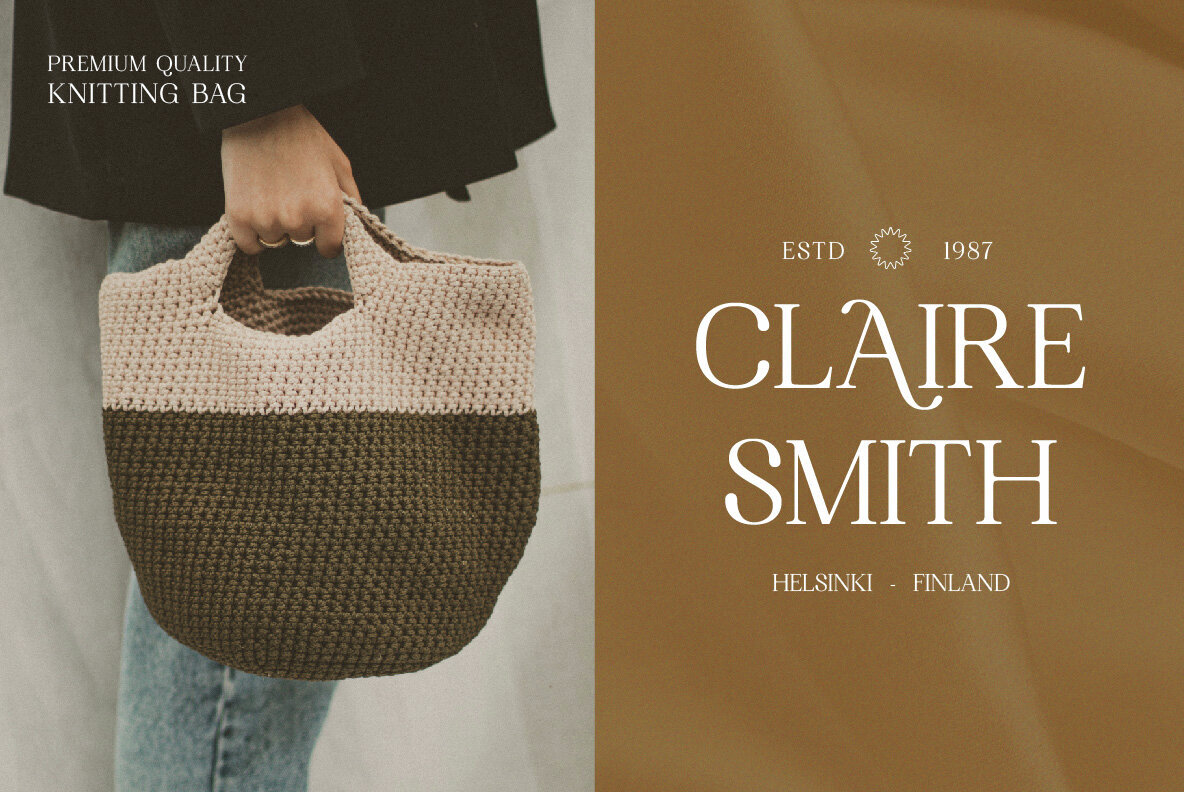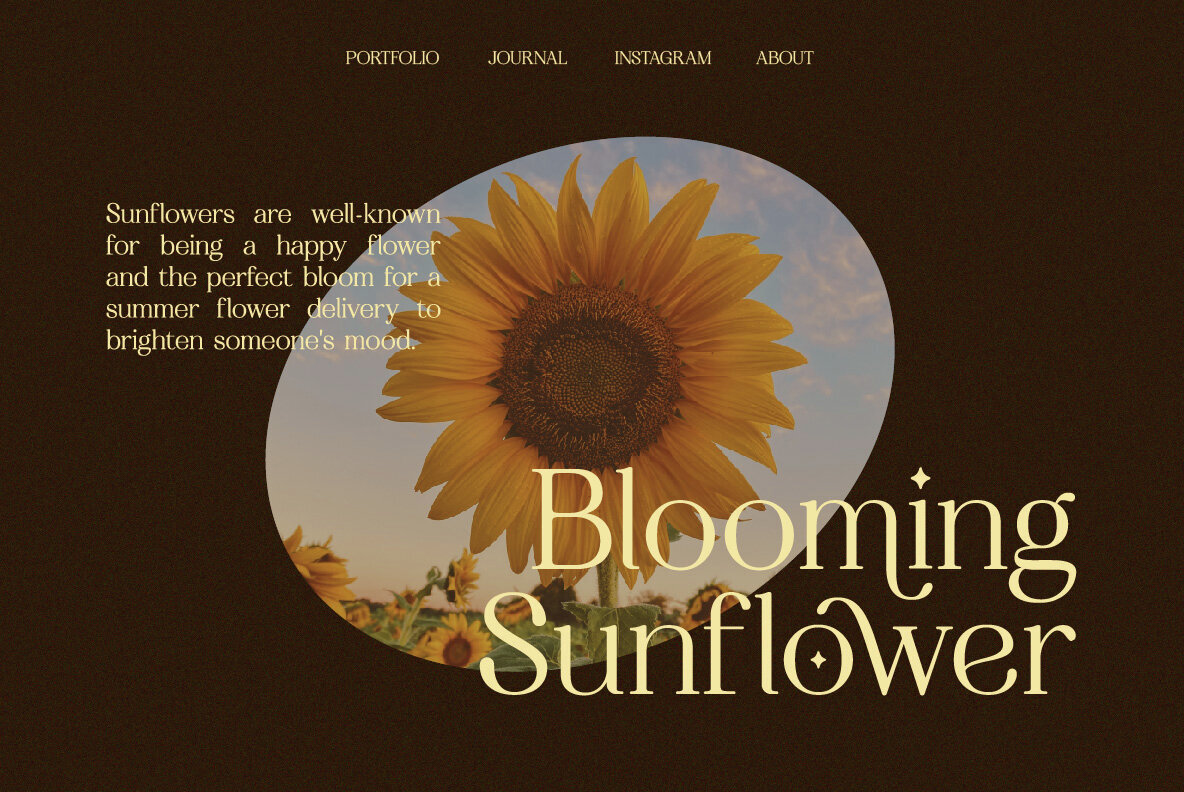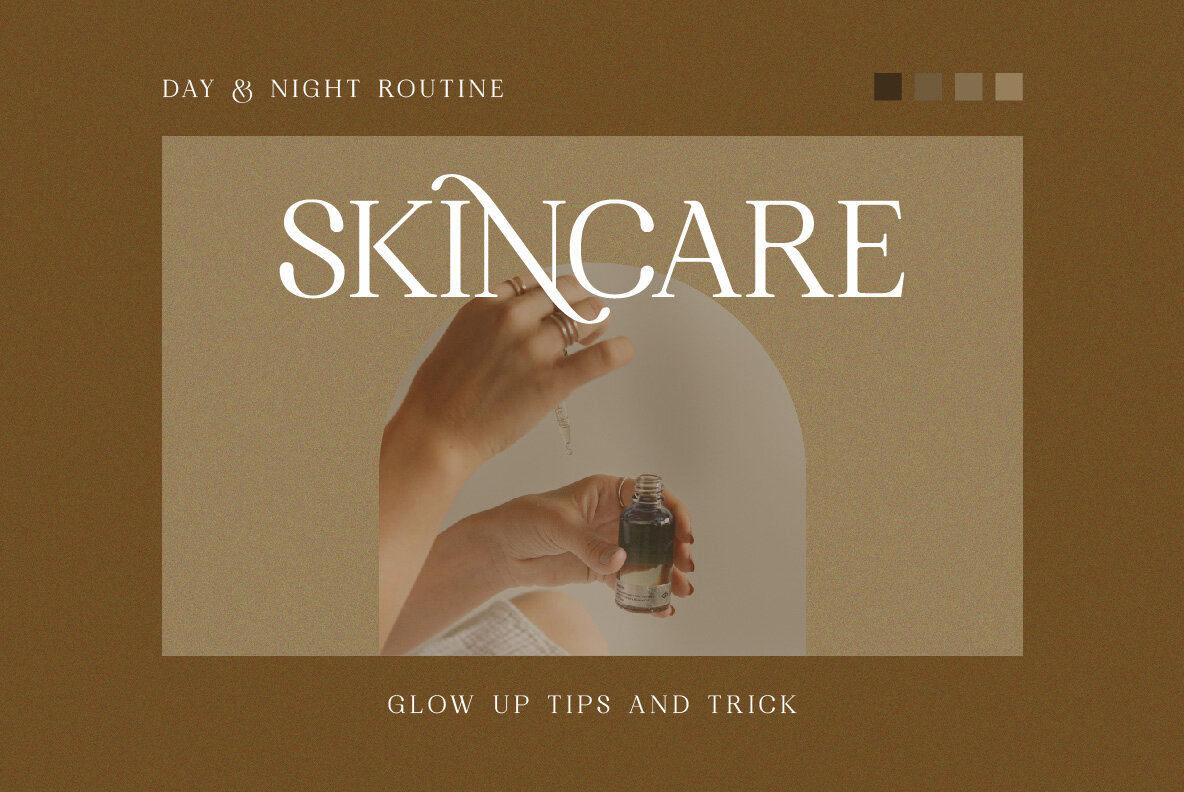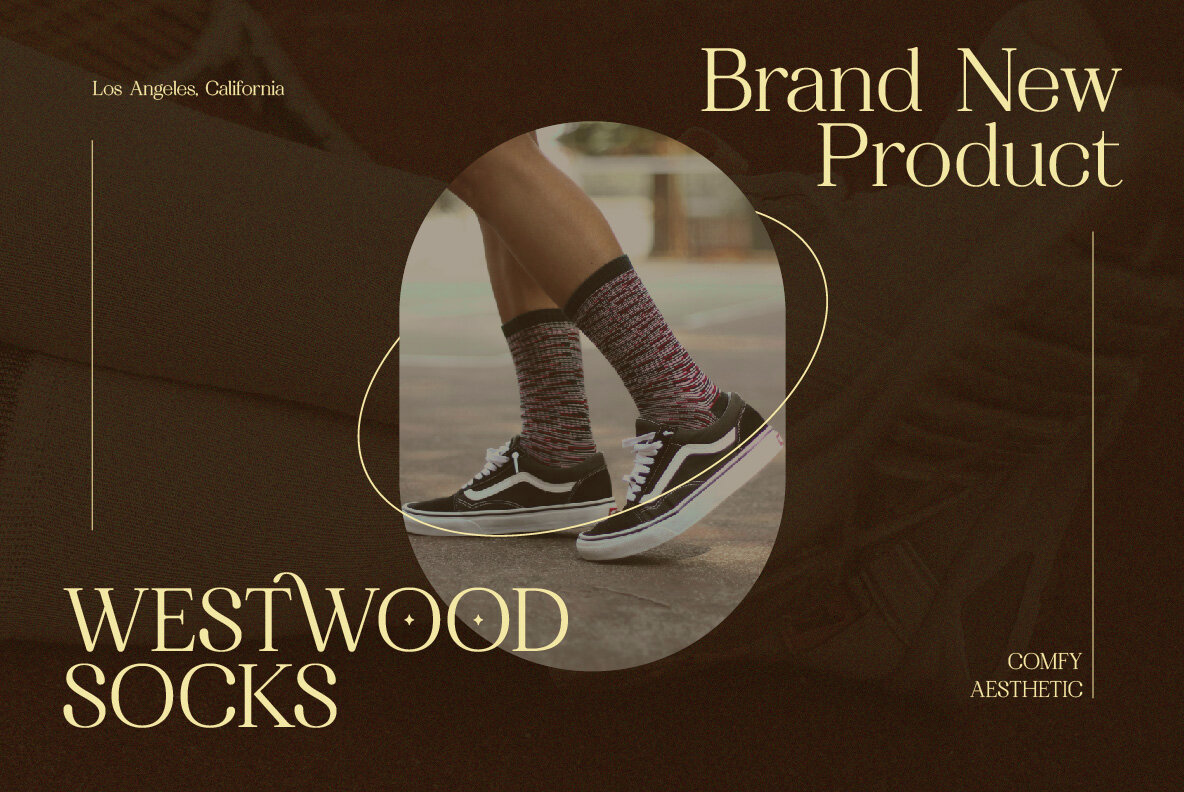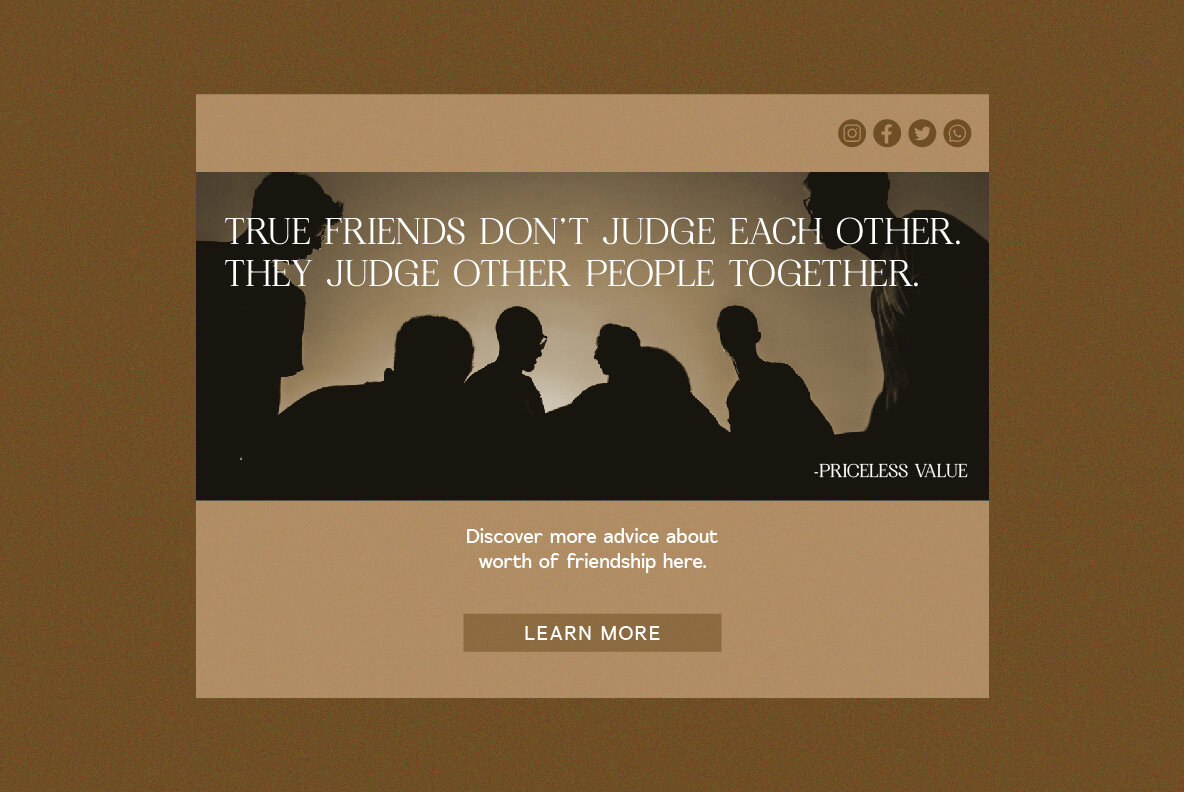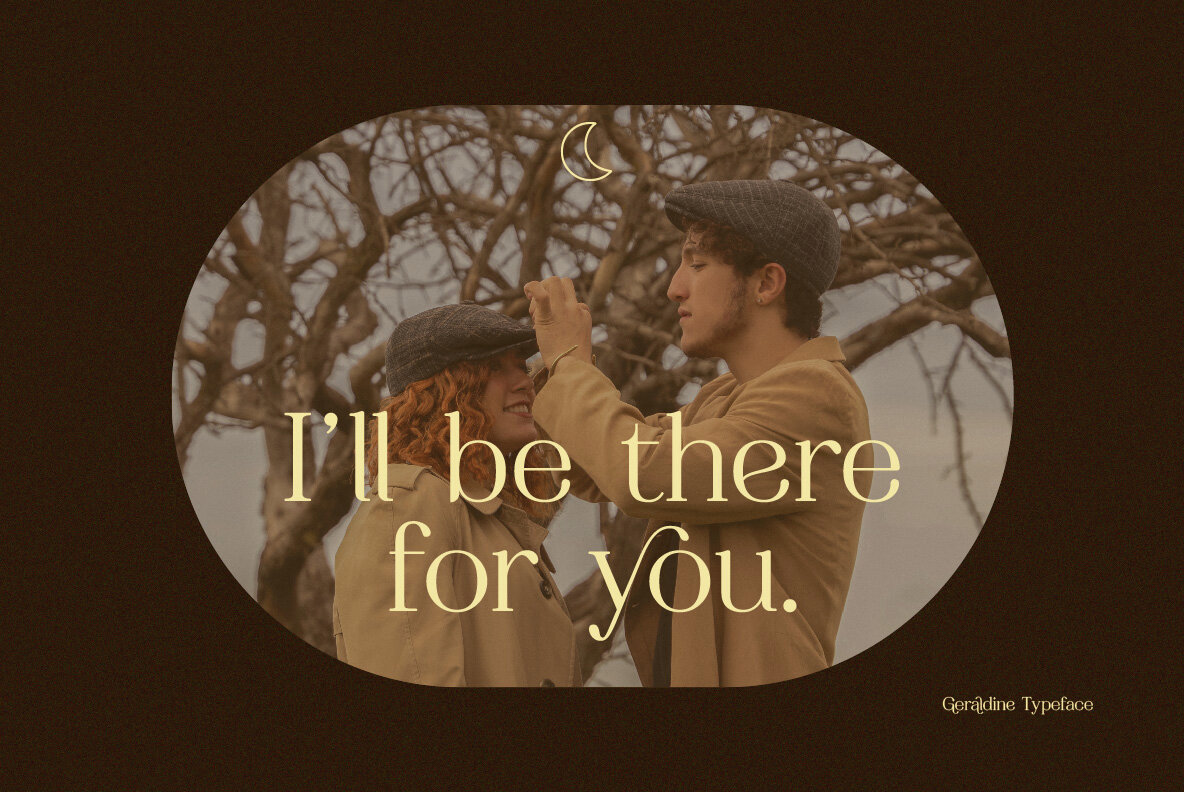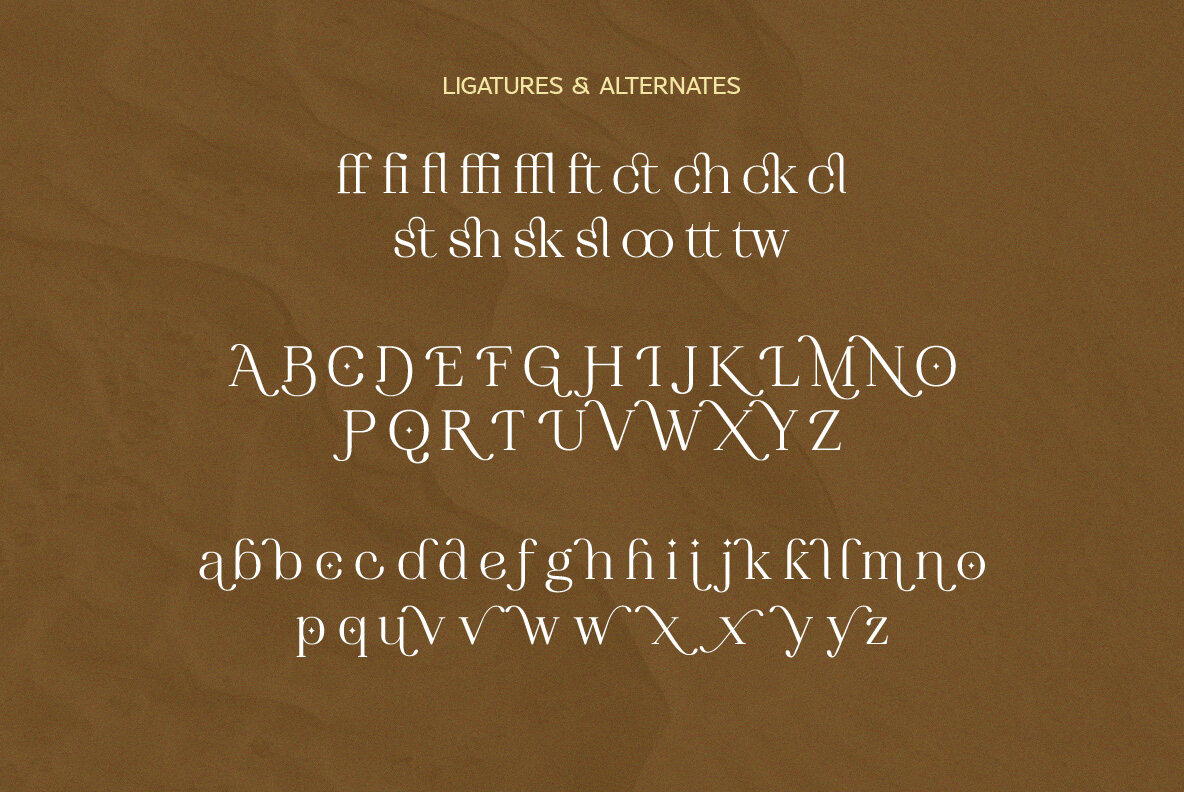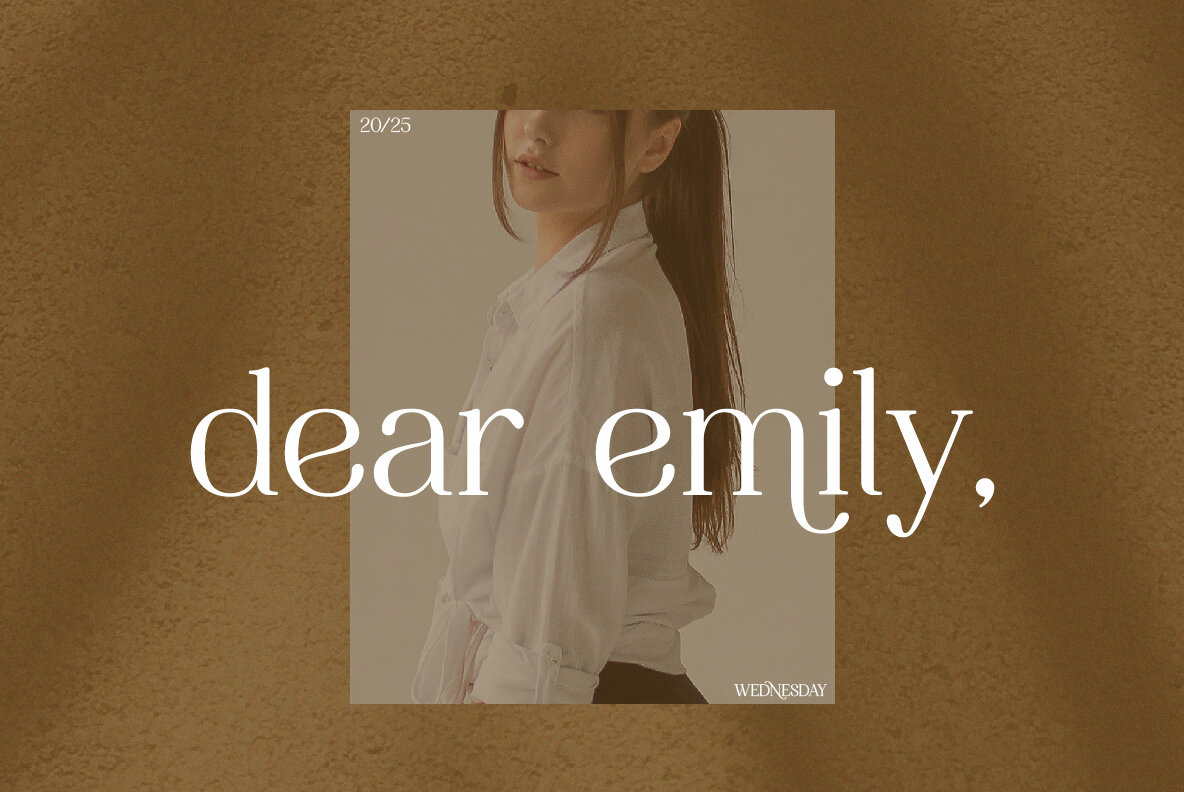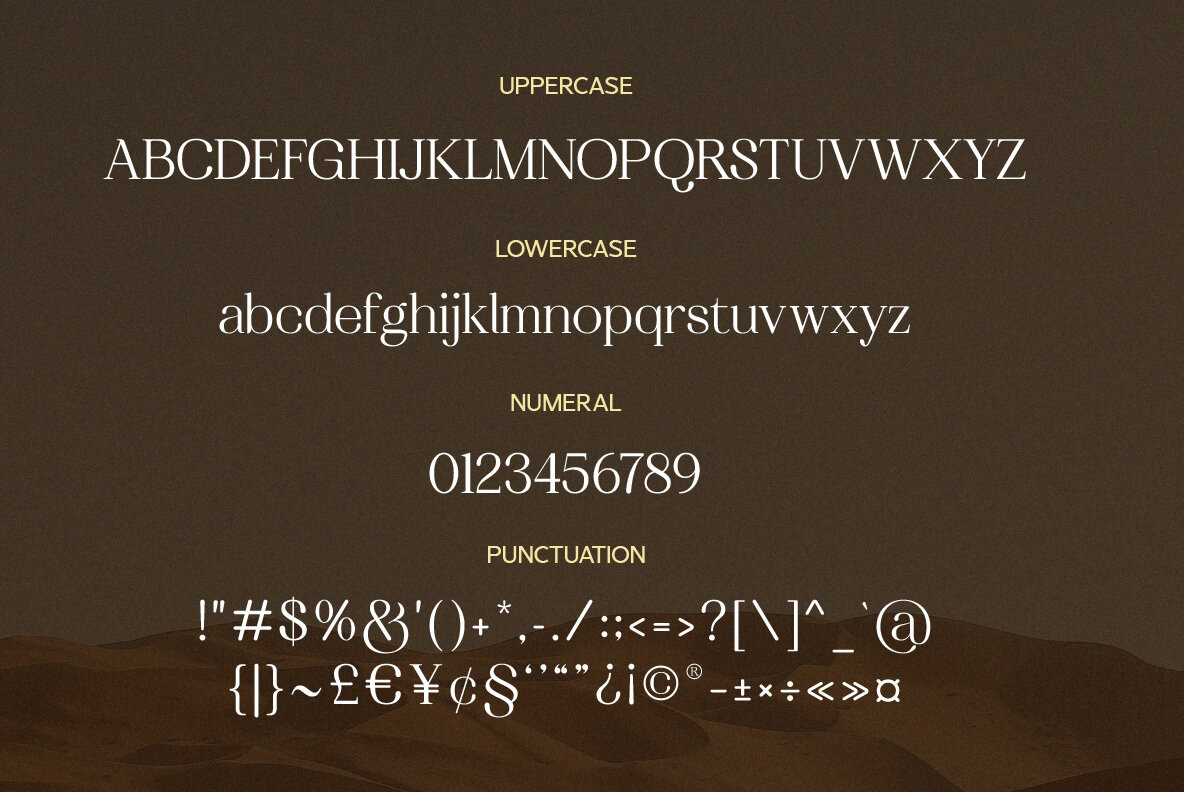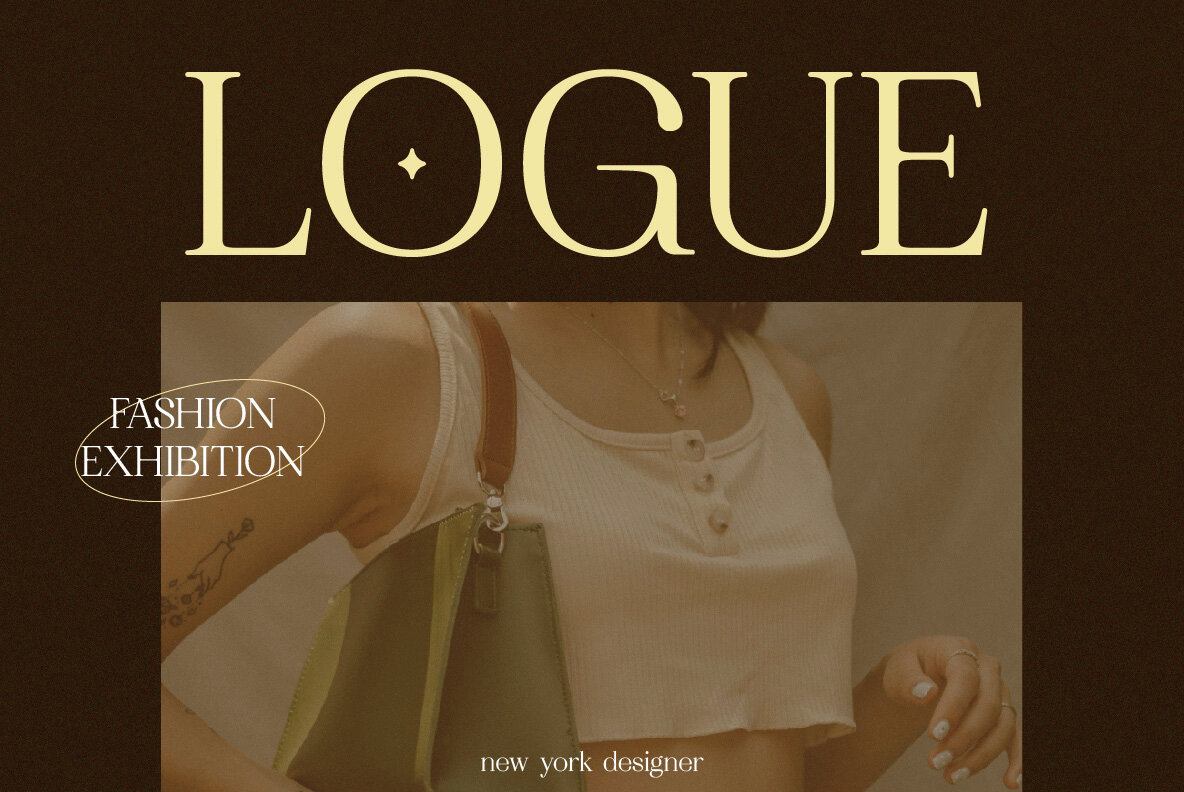
SS Geraldine Font
Geraldine Regular
Geraldine is a modern soft serif font that offers alternatives, ligatures, and multilingual support, making it ideal for various design projects. Whether you need it for editorial work, logo creation, clothing branding, product packaging, or as an elegant text overlay, Geraldine provides the sophistication you seek. Experience the elegance of the Geraldine font in your daily design work. For any questions or issues, feel free to reach out. Thank you for choosing SS Geraldine by Second Son Radiance.SS Geraldine: A Modern Soft Serif with Versatile Features